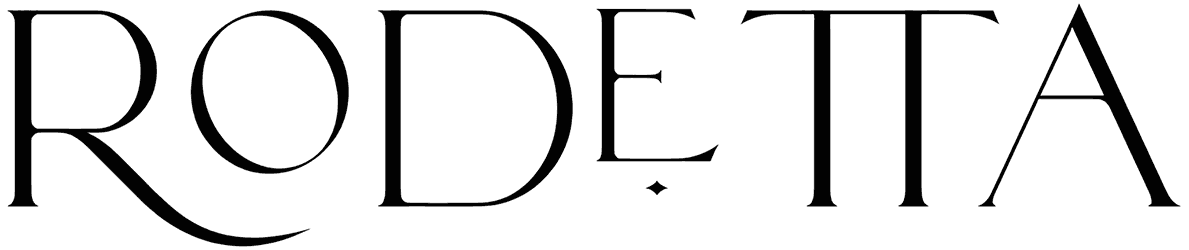
Rodetta Font
Elegant, classy, chic, and whimsical are the only true words we could find for describing a powerful luxury serif font that is totally ready to be used in your next graphic project.
If you really crave to utilize this font in branding, logos, magazines, social media posts, and presentations, then we offer you to just overlook the lack of lowercase letters and make the best possible outcome out of it.
Designed by: BrandSemut